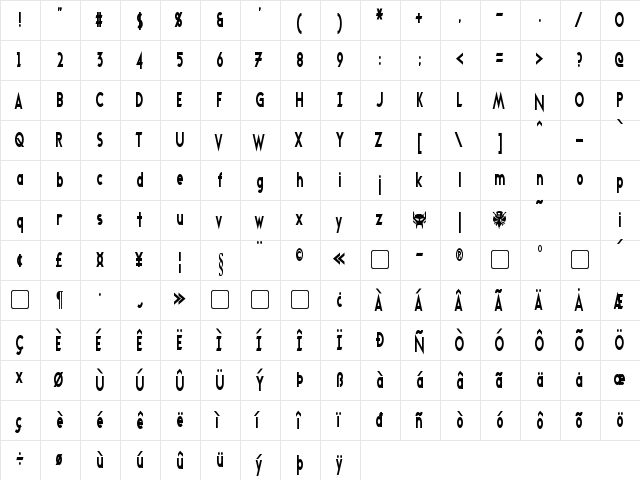
Transmetals Condensed Regular
| Designer | Neale Davidson |
Design Context for Transmetals Condensed Typeface
Transmetals Condensed takes a measured approach to typography — its balanced proportions and neutral character make it a reliable workhorse for both digital and print work. The condensed width makes it efficient for tight spaces without sacrificing legibility.